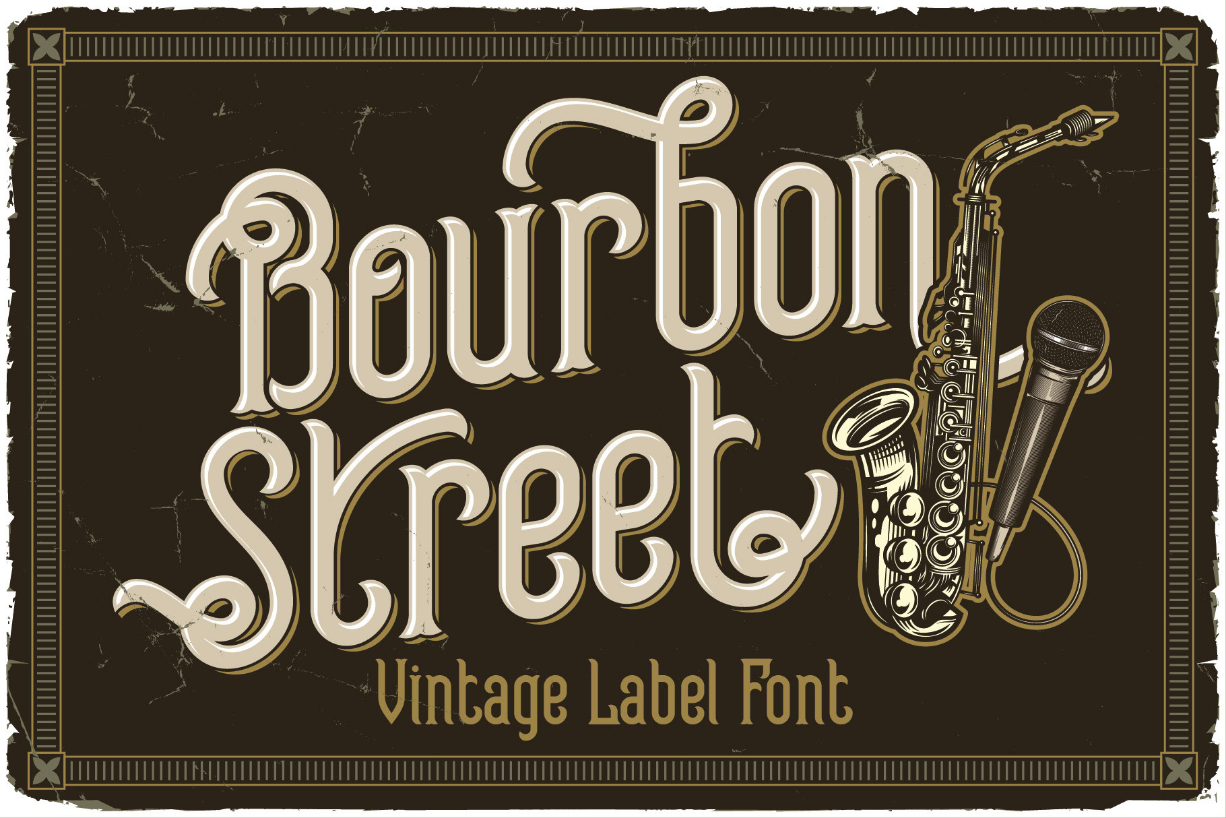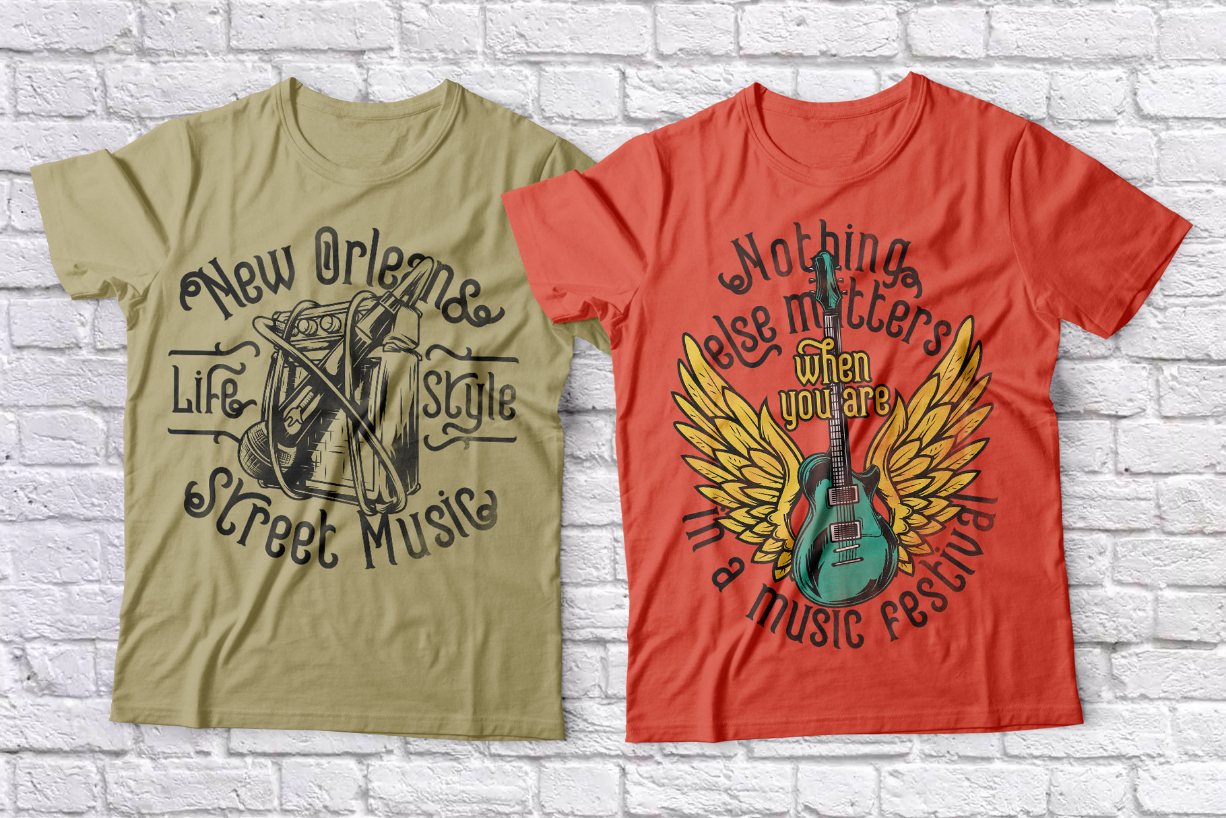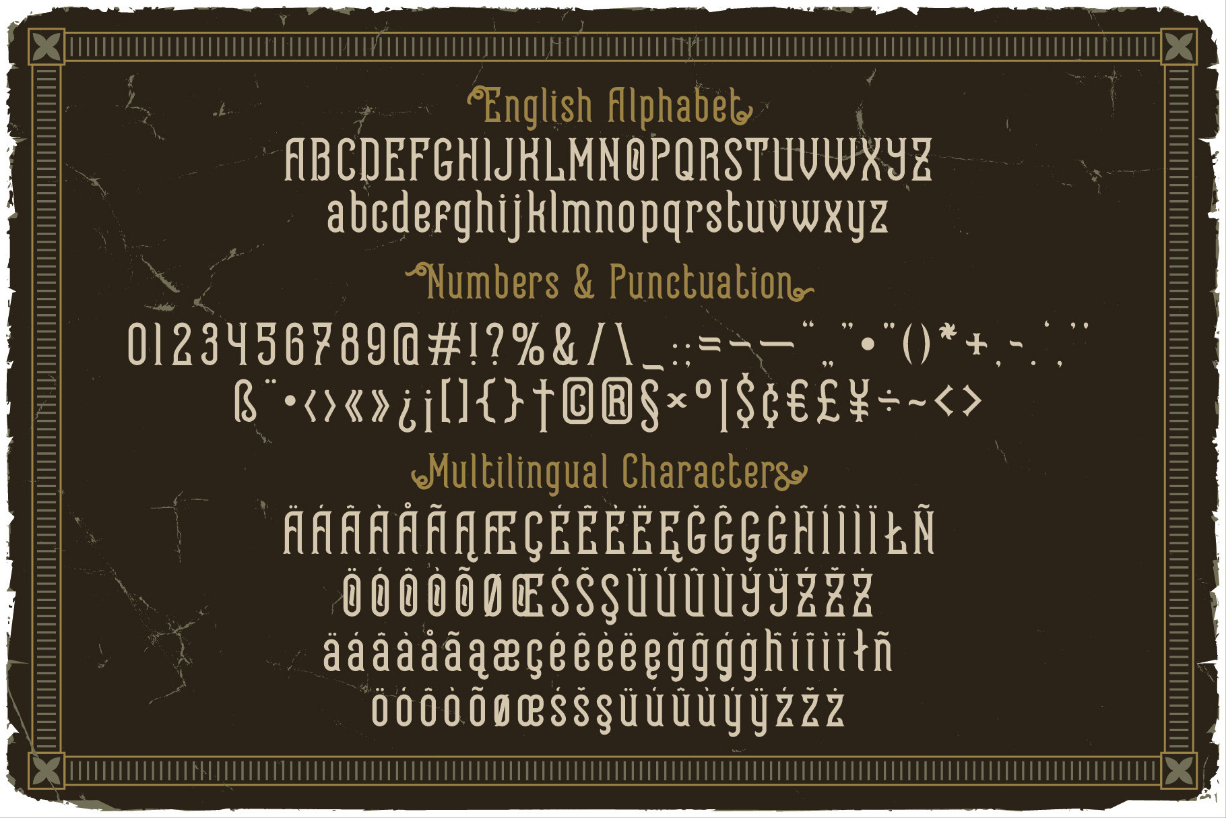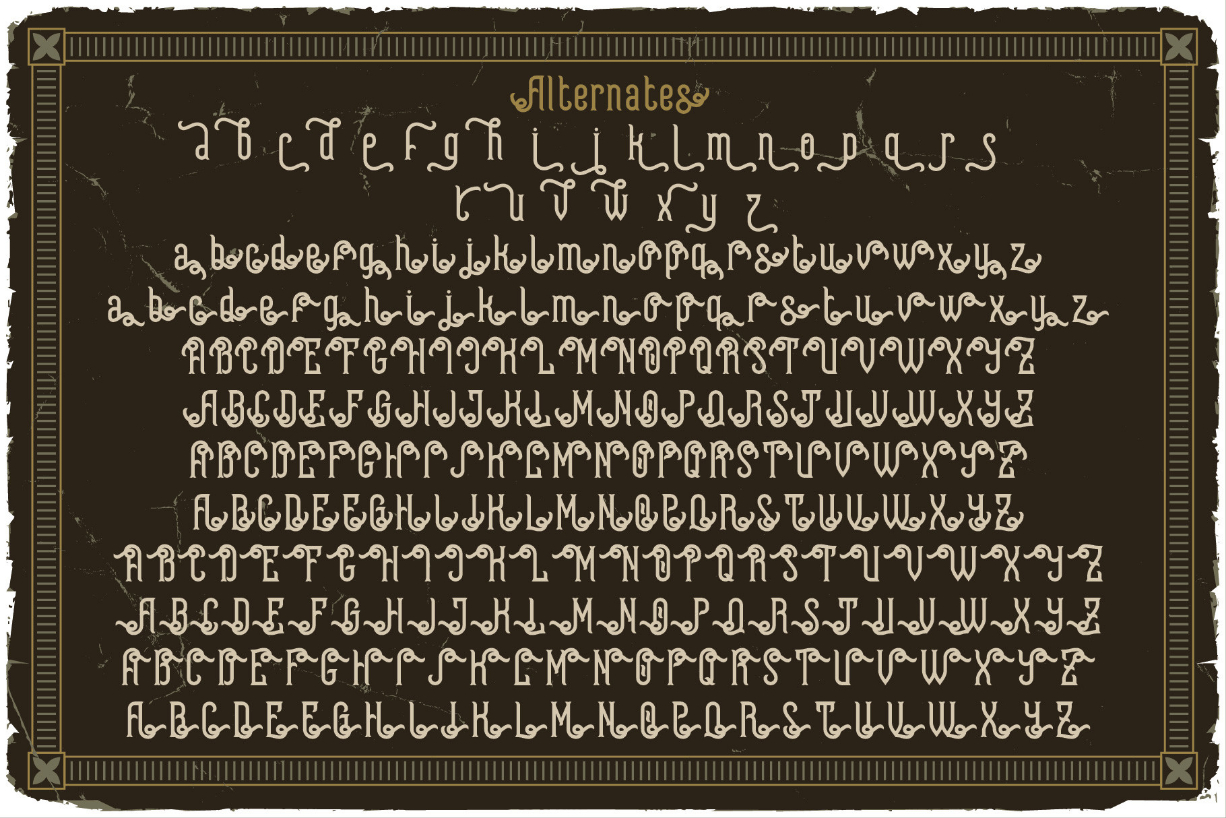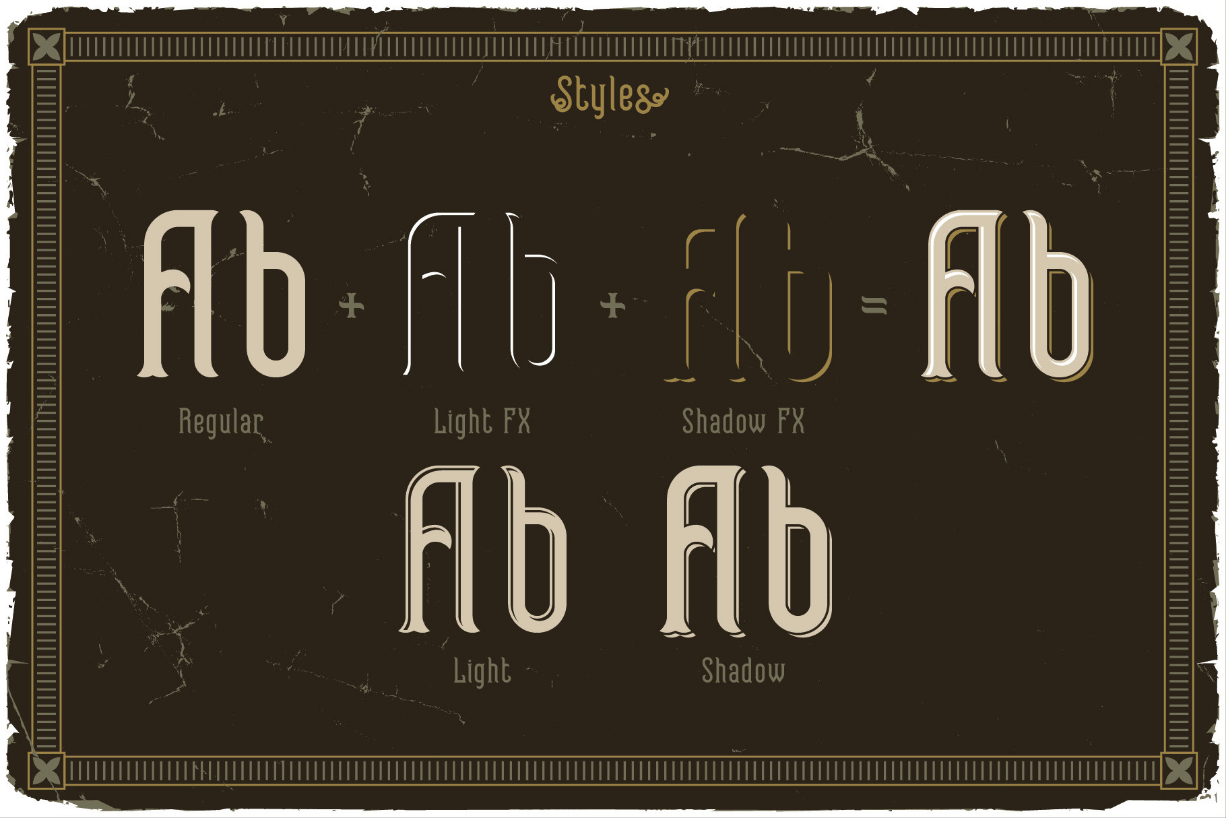
About Bourbon Street Font
Introducing a vintage label font named Bourbon Street. This splendid blackletter font family will look good on vintage-styled designs like posters, T-shirts, labels, logos, etc. This font is PUA encoded, which means you can access all of the glyphs and swashes with ease!